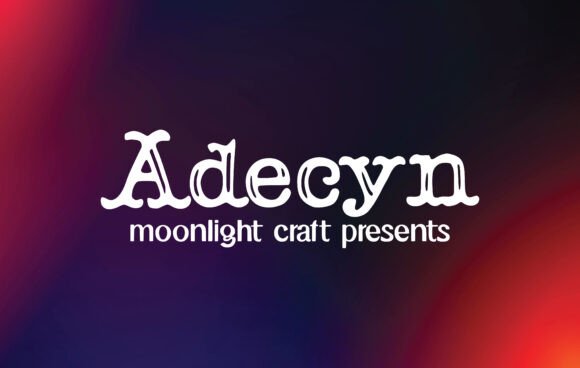
Adecyn Font: Elevating Editorial Design and Branding
There is a specific moment in every editorial design project when the layout feels functional but lacks a soul, and this is usually when I turn to Adecyn to inject warmth into the composition. As a designer working on a recent lifestyle coaching workbook, I found that standard typography felt too sterile for the intimate content, yet traditional scripts were often too ornate for modern digital reading. Adecyn emerged as the perfect bridge, offering the structural confidence of Slab Serif aesthetics combined with the organic charm of handwritten Fonts. It was not merely about choosing a pretty typeface; it was about selecting a visual voice that could carry the weight of personal storytelling while maintaining professional polish.
Adecyn for Lifestyle Blog Headers and Newsletter Graphics
When redesigning a lifestyle blog header or crafting a newsletter graphic, Adecyn serves as an anchor that immediately signals authenticity to the reader. In my recent project updating a wellness publication’s visual identity, the challenge was to create a masthead that felt personal without sacrificing legibility across mobile devices. Adecyn provided the necessary character density to stand out against busy photography, acting as a lovely and beautiful handwritten font that commands attention without shouting. The letterforms possess a rhythmic bounce that mimics natural handwriting, yet they retain enough geometric stability to function effectively in digital spaces where pixel clarity is paramount.
For content creators building a brand identity around vulnerability and connection, this typeface offers a distinct advantage over generic display fonts. When used in newsletter headers, Adecyn creates an immediate sense of intimacy, making mass-distributed content feel like a personal letter from a friend. The font’s unique stroke modulation ensures that even at smaller sizes typical of email clients, the distinctive personality remains intact. This balance is critical for maintaining high open rates and engagement, as the typography itself reinforces the promise of valuable, human-centric content within the message.
Creating Eye Catching Logos and Branding with Adecyn
Adecyn is arguably the best choice for creating eye catching logos, branding and quote graphics because it carries inherent narrative weight that standard sans serif typefaces simply cannot replicate. During a branding session for a boutique ceramics studio, we needed a wordmark that communicated artisanal craftsmanship and modern elegance simultaneously. By utilizing Adecyn, we achieved a logo that looked bespoke and hand-lettered rather than typed, saving countless hours of custom illustration while delivering a premium result. The font’s slab-like undertones provide a solid foundation that reproduces beautifully on business cards, packaging, and social media avatars, ensuring the brand identity remains consistent across all touchpoints.
- Logo Versatility: The sturdy construction allows Adecyn to work in both horizontal lockups and stacked formats without losing integrity.
- Social Media Impact: Quote templates featuring this font stop the scroll because the texture contrasts sharply with flat digital backgrounds.
- Merchandise Application: The bold, handwritten aesthetic translates exceptionally well to embroidered goods, tote bags, and ceramic stamps.
- Brand Cohesion: Using Adecyn across sub-brands or product lines creates a unified visual thread that strengthens overall recognition.
Adecyn in Recipe Ebook Covers and Printable Planners
Designing recipe ebook covers and printable planners requires a delicate balance between decorative appeal and functional clarity, and Adecyn excels in this hybrid role. While categorized uniquely, its visual weight aligns with the sturdiness expected of Slab Serif typefaces, making it ideal for titles that need to be readable on small e-reader screens or thumbnail images. When laying out a seasonal baking guide, I utilized Adecyn for the chapter titles and cover text to evoke the feeling of a cherished family recipe card. The font’s lovely and beautiful handwritten nature suggests nostalgia and comfort, which are essential emotional triggers for culinary publishing, yet its clean lines prevent the design from looking dated or cluttered.
In the context of printable planners and worksheets, readability is non-negotiable, and Adecyn performs surprisingly well as a heading font that guides the user through the document. Unlike overly loopy scripts that can cause cognitive fatigue when scanning for information, Adecyn’s open counters and distinct character shapes allow for quick recognition. This makes it an excellent choice for section dividers, monthly headers, and affirmation prompts within coaching workbooks. The font takes creative ideas to the highest level by transforming utilitarian documents into keepsake-quality resources that users actually want to print, display, and interact with daily.
Font Pairing Strategies for Editorial Layouts and Quotes
To maximize the impact of Adecyn in editorial layouts, it must be paired thoughtfully with complementary Fonts that support its expressive personality without competing for attention. In my experience designing feature articles and pull quotes, Adecyn shines brightest when anchored by a neutral, high-x-height sans serif or a refined serif for body copy. For a recent digital magazine spread, I paired Adecyn headlines with a clean geometric sans serif for captions and navigation elements; this contrast highlighted the handwritten font’s texture while ensuring the informational hierarchy remained crystal clear. The goal is always to let Adecyn serve as the emotional hook while the supporting typeface handles the heavy lifting of long-form reading.
- Establish Hierarchy: Reserve Adecyn strictly for display purposes such as titles, drop caps, and short excerpts to preserve its specialness.
- Mind the White Space: Handwritten fonts require generous breathing room; avoid tight tracking or leading that cramps the natural flow of the strokes.
- Contrast Weight: If using Adecyn for a bold statement, ensure the body text is significantly lighter to create visual separation and reduce page heaviness.
- Color Considerations: Dark charcoal or deep earth tones often render better than pure black, enhancing the organic, ink-on-paper feel of the typeface.